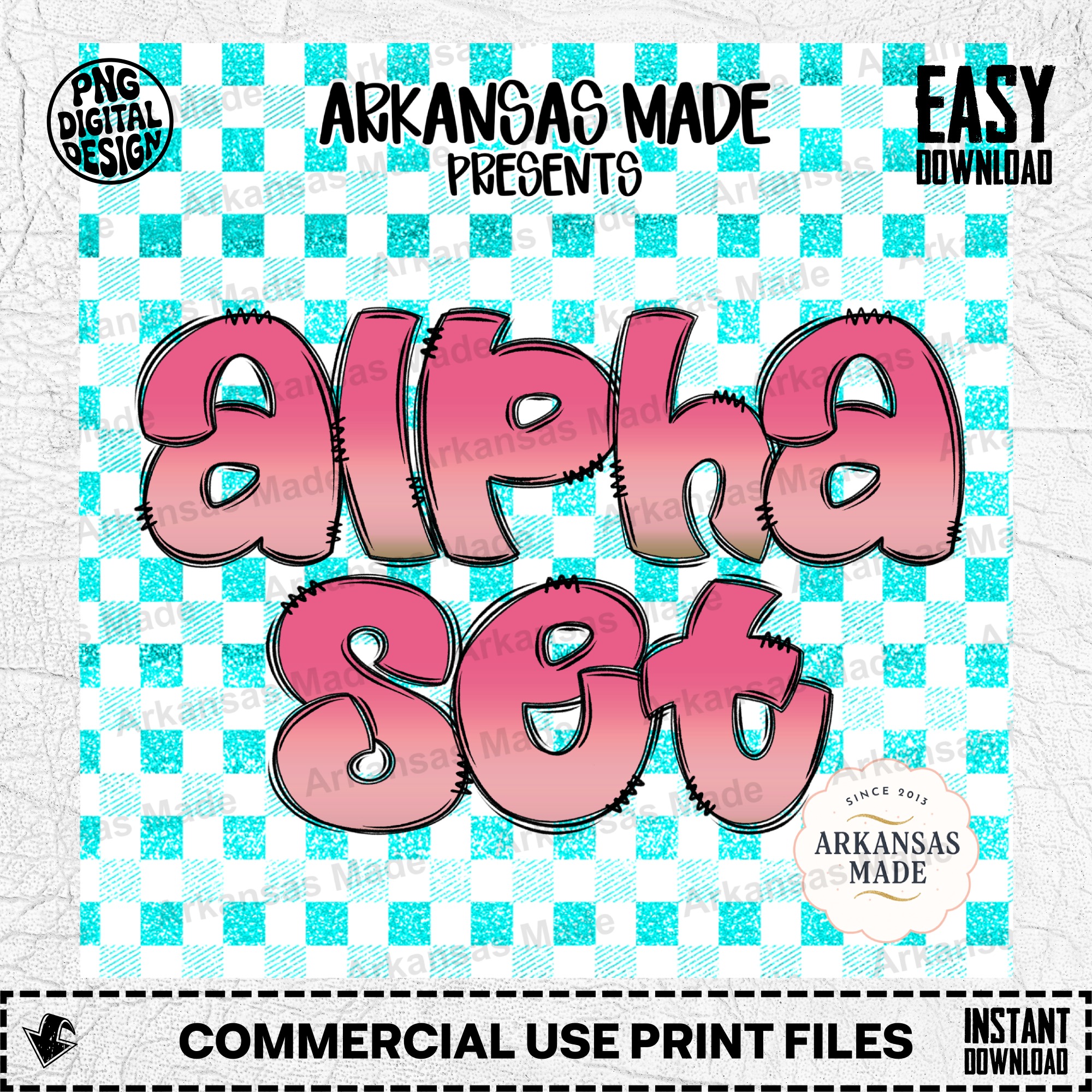
Unleash creativity with this adorable Pink Bubble Alpha PNG Set! Featuring playful gradient letters and a unique sketchy doodle style. Perfect for crafters, small business owners, and DIY enthusiasts, this digital alphabet set brings a cheerful and trendy Y2K aesthetic to your projects. Use these puffy letters for custom t-shirts, personalized gifts, tumbler designs, digital scrapbooking, or any creative endeavor needing a touch of fun. An instant download, it’s ideal for adding a unique, hand-drawn look to all your designs.